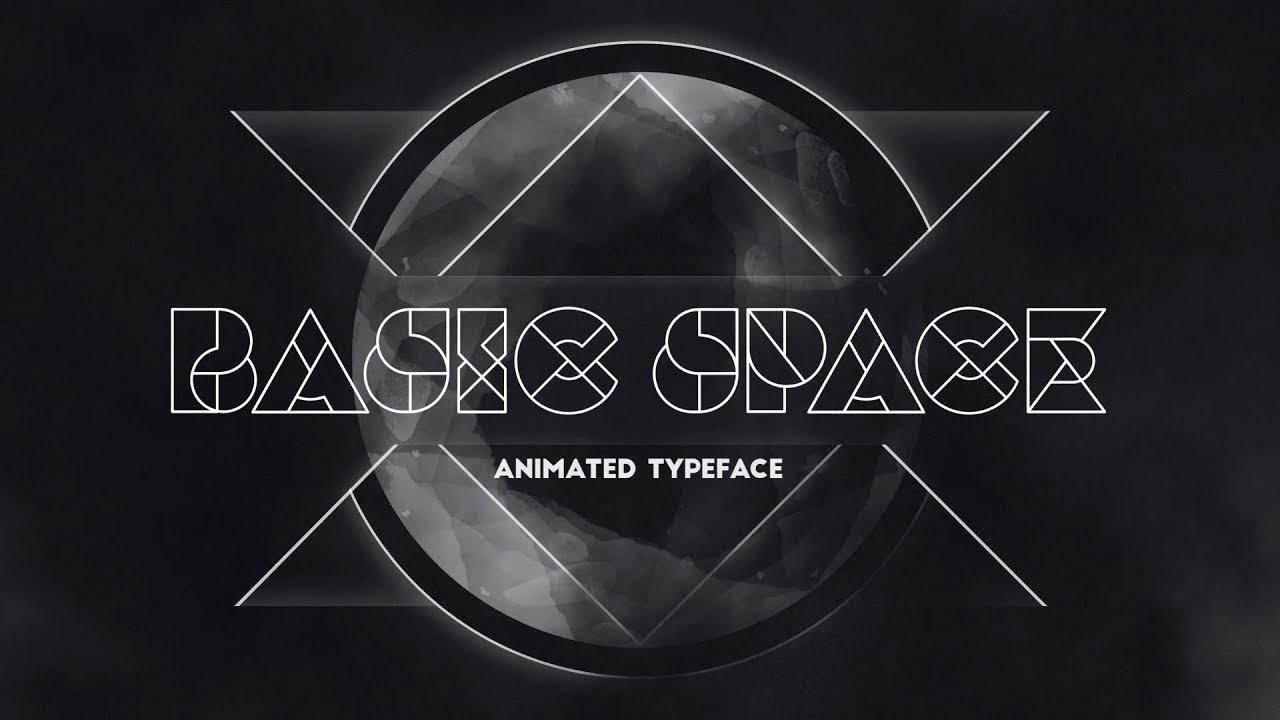
Basic Space Animated Typeface
Basic Space Animated Typeface On Behance Basic space is an experimental display typeface with geometric elements. well suited for all kinds of sci fi or modernist titles. the typeface is uppercase only and features numbers and some basic punctuation. a controller allows you to change the color and line width to your liking. Basic space is an uppercase only animated typeface built for after effects. the design centers on geometric shapes and line based construction, making it a natural fit for sci fi interfaces, futuristic titles, or minimalist motion graphics.
Basic Space Animated Typeface Behance Basic space is an experimental display typeface with geometric elements. well suited for all kinds of sci fi or modernist titles. Basic space is an experimental display typeface with geometric elements. well suited for all kinds of sci fi or modernist titles. the typeface is uppercase only and features numbers and. Basic space is an experimental display typeface with geometric elements. well suited for all kinds of sci fi or modernist titles. the typeface is uppercase only…. Download free animated font and text templates for after effects. perfect for creating dynamic titles, typography animations, and engaging video content.
Basic Space Animated Typeface Behance Basic space is an experimental display typeface with geometric elements. well suited for all kinds of sci fi or modernist titles. the typeface is uppercase only…. Download free animated font and text templates for after effects. perfect for creating dynamic titles, typography animations, and engaging video content. Basic space is an experimental display typeface with geometric elements. well suited for all kinds of sci fi or modernist titles. the typeface is uppercase only and features numbers and some basic punctuation. a controller allows you to change the color and line width to your liking. A modern perspective on classic avant garde shapes. discover animography’s animated typefaces for adobe after effects, with over 35 customizable, motion ready fonts to elevate your titles and motion design projects. Introducing basic space! a new animated typeface. available now at animography products basic space — ☄🌚🛰. This is "basic space animated typeface" by niels van de spijker on vimeo, the home for high quality videos and the people who love them.